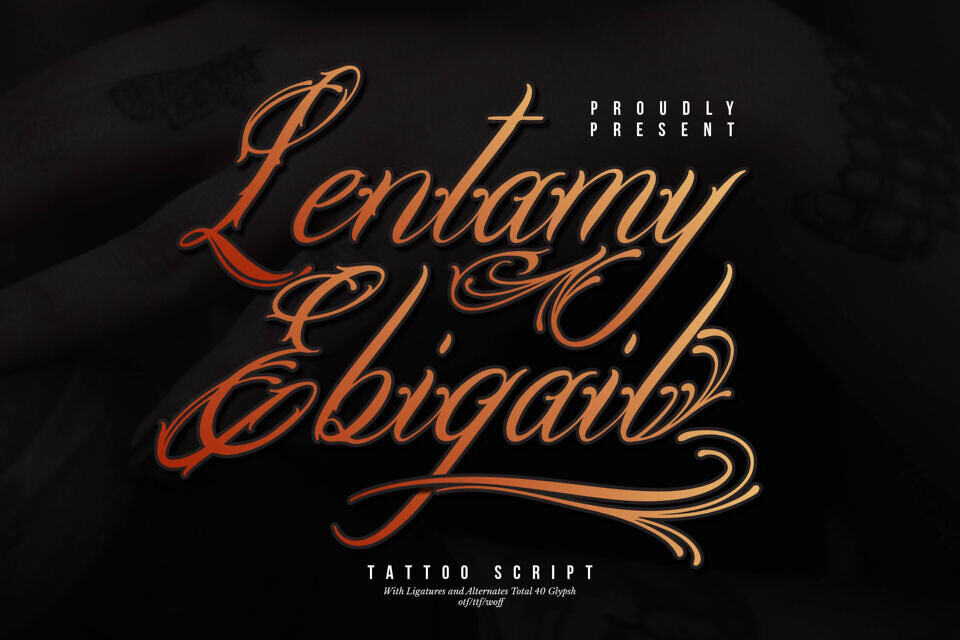
Lentamy Ebigail Font
Lentamy Ebigail is a stylish script font designed for tattoos. Its flowing strokes and elegant curves make it perfect for creating beautiful and personalized tattoo designs.